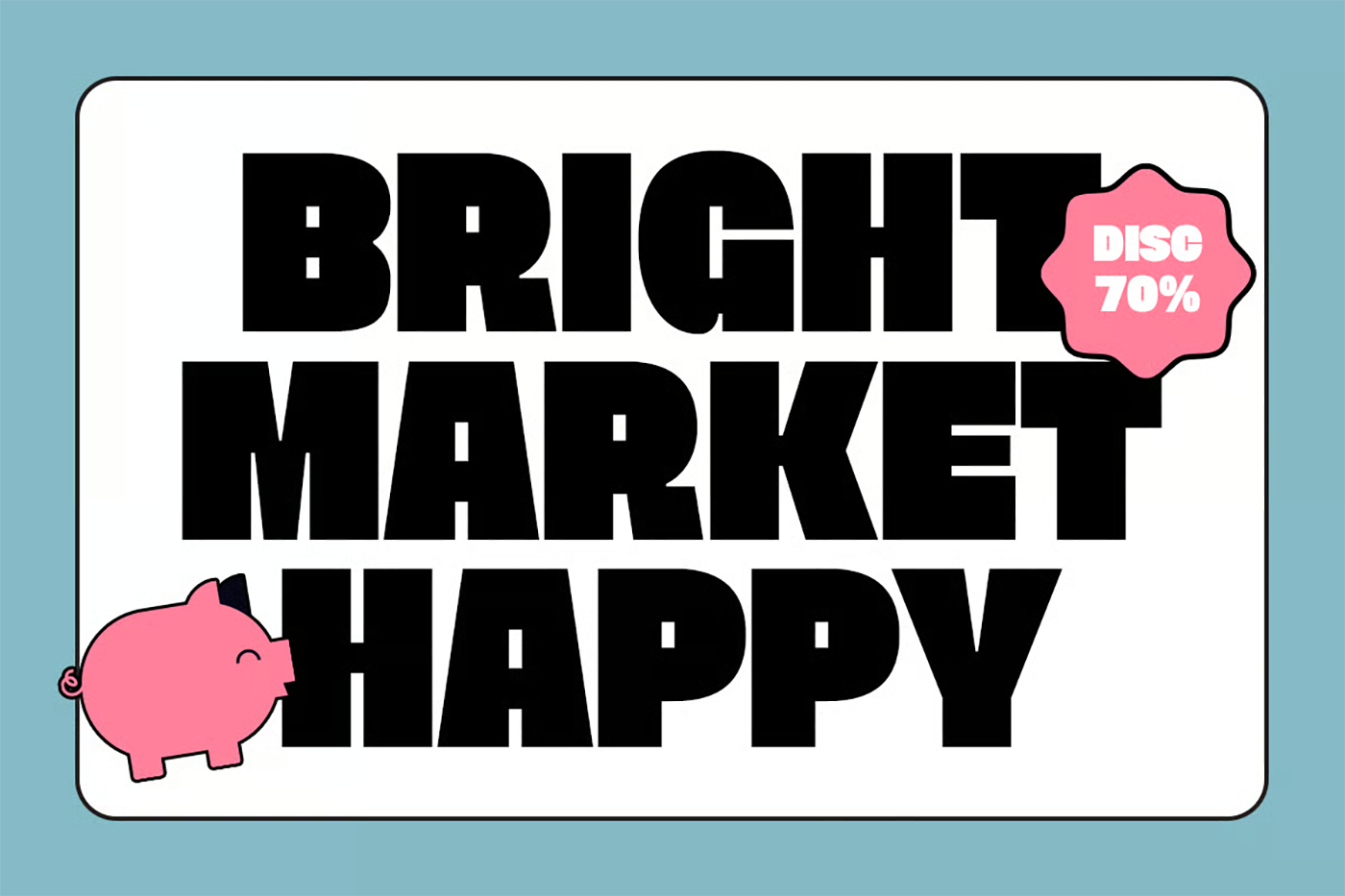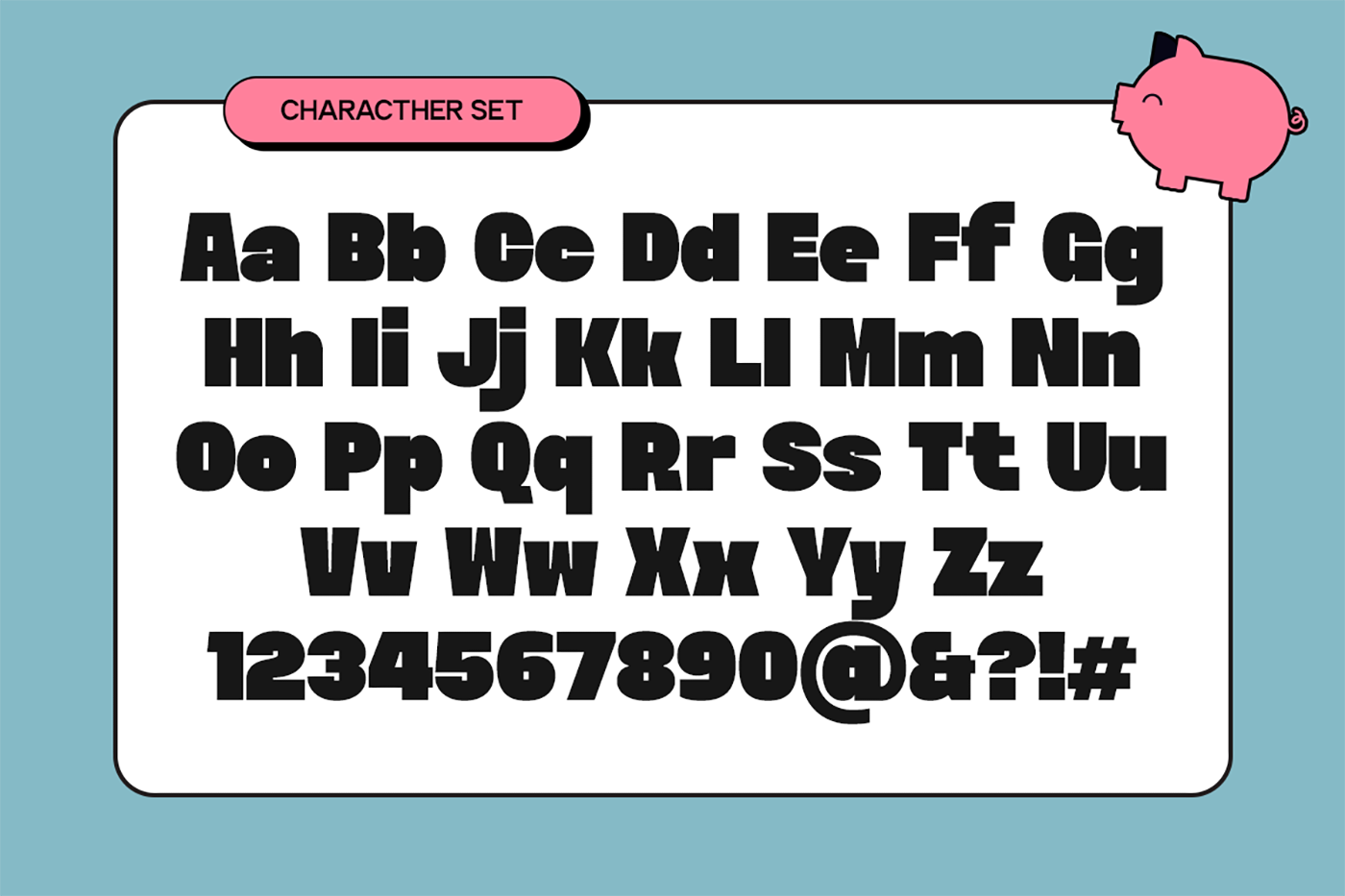
Beink - Bold Display Font
CC Beink is a bold and energetic display typeface designed to make a loud, playful statement. With its chunky forms, heavy weight, and smooth rounded edges, Beink brings a groovy and expressive vibe that instantly grabs attention. Inspired by retro pop aesthetics and modern playful design, CC Beink combines massive shapes with friendly curves to create a strong yet approachable personality. Its oversized proportions and compact structure make it perfect for bold headlines that demand visibility and impact.
As seen in its thick, solid letterforms, CC Beink is built for high-impact compositions—ideal for posters, branding, social media graphics, packaging, and fun editorial layouts. The font radiates confidence while keeping a lighthearted and engaging tone, making it perfect for designs that want to feel modern, cheerful, and dynamic. Whether used in large-scale typography or statement branding, CC Beink delivers a visual punch with a groovy twist—turning every word into a bold graphic element.